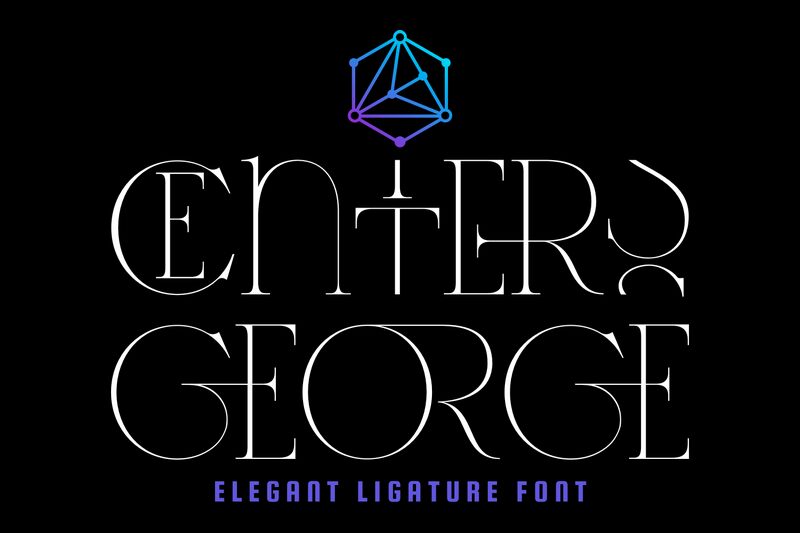
CentersGeorge-Regular
Centers George, a stunning creation by 177Studio, stands out as a display font that masterfully combines lightness with an intriguingly distorted style, carving out its own niche in the realm of typography. Its artful contortions capture attention and draw the eye along unique curves and unexpected angles, making it an excellent choice for designers looking to inject personality and dynamism into their projects. With its airy weight juxtaposed against its playful twists, Centers George exudes an aesthetic appeal that is both elegant and whimsically modern.
Whether gracing the cover of a cutting-edge magazine or setting the tone for innovative branding materials, this font promises to infuse your creative endeavors with a fresh and captivating vibe.